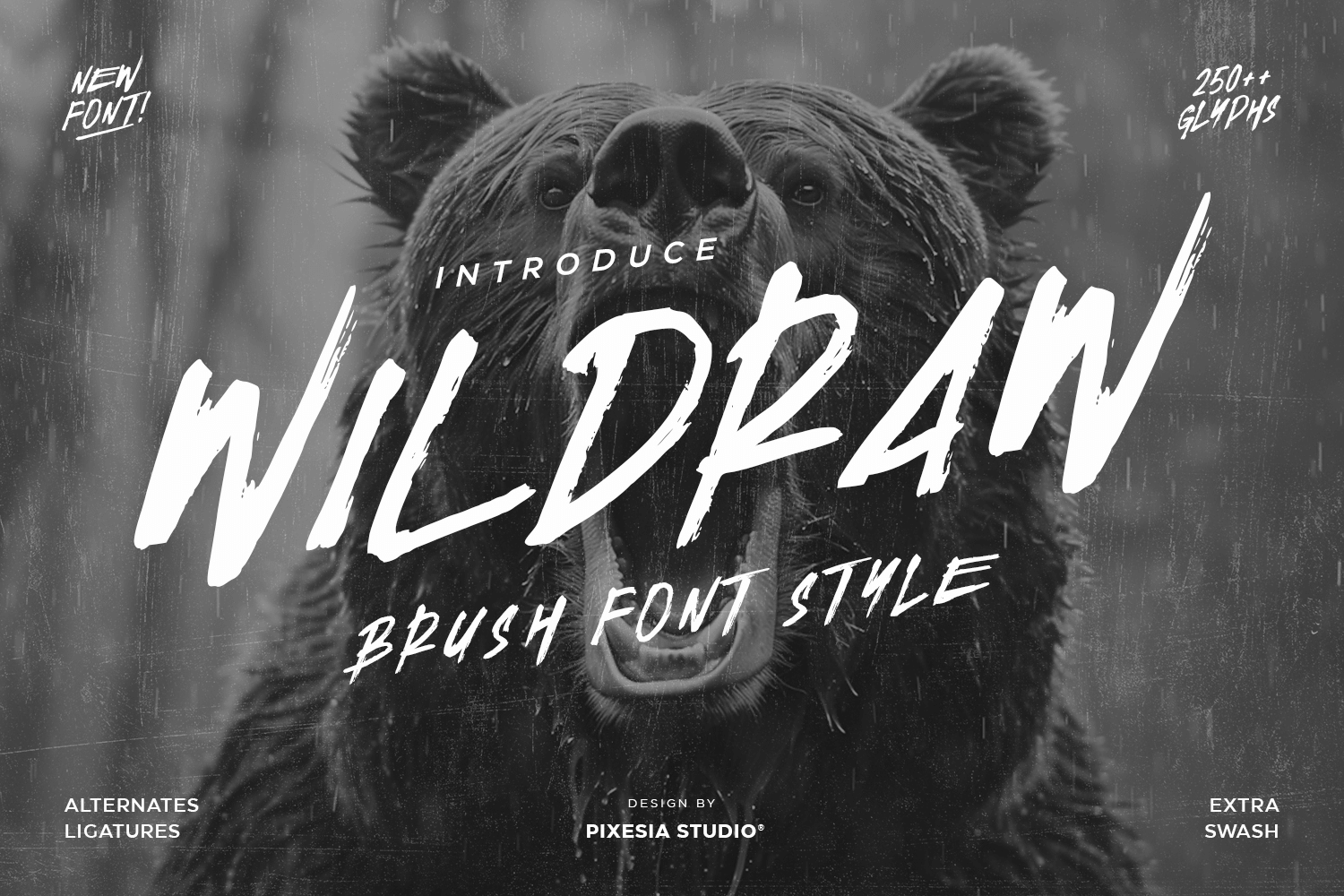
Wildraw - Bold Brush Font
Introducing Wildraw - Bold Brush Font
Wildraw is a bold and aggressive brush font crafted to capture the raw energy of hand-painted lettering. With rough strokes, natural texture, and strong movement, Wildraw delivers a loud visual punch that feels intense, wild, and unapologetically bold. It includes 250+ glyphs, alternates, ligatures, and swashes, giving designers full creative freedom and variation.
Perfect for sports branding, urban apparel, album artwork, posters, movie titles, outdoor gear, and adrenaline-driven visual concepts, Wildraw sets a fearless tone and demands attention in every design. Whether you're creating a gritty logo, headline typography, or extreme graphic identity, Wildraw ensures your message hits with impact.